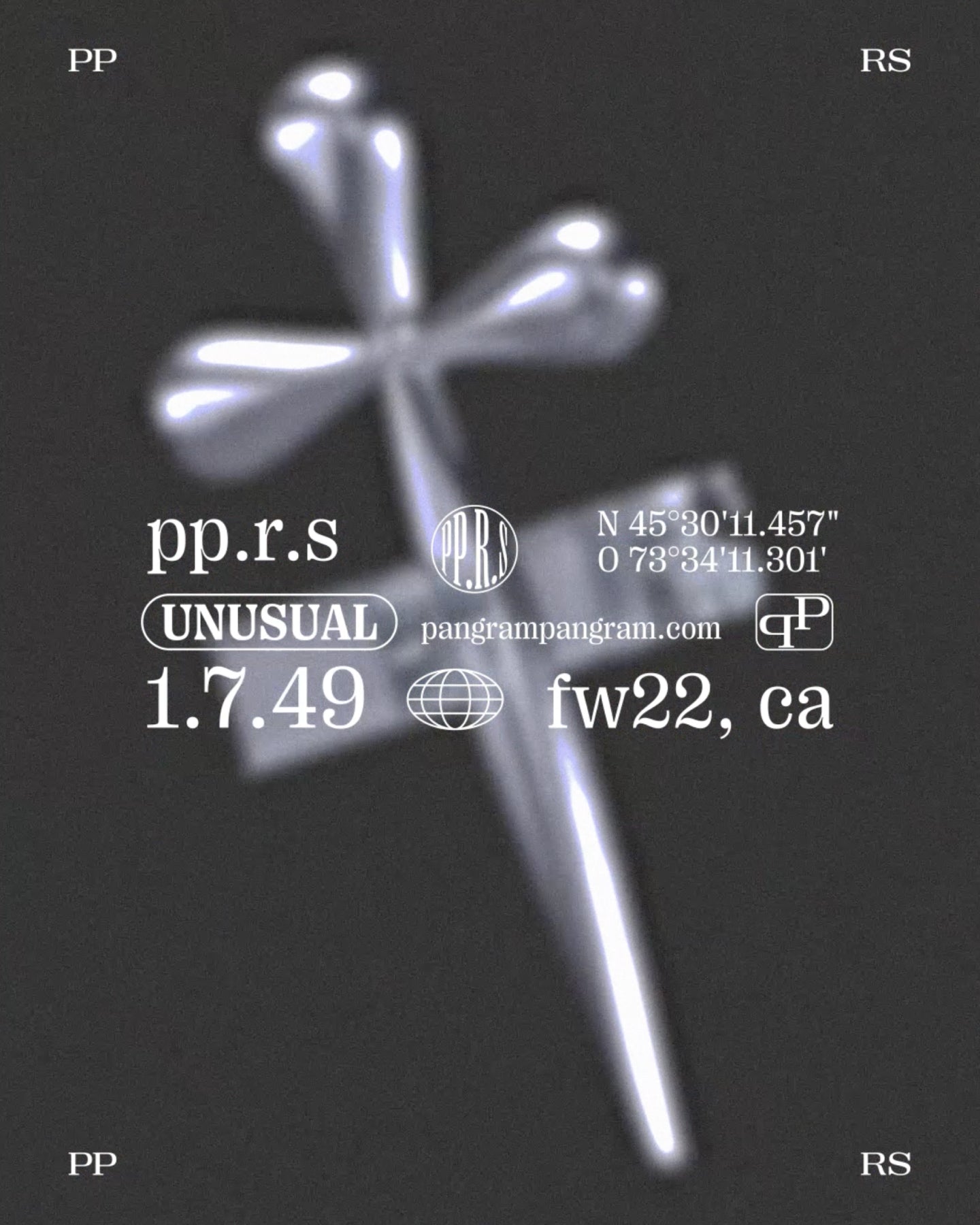
Right Serif is variable
Right Serif
Borrowed from Grotesque, Tailored for Now
Imagine if Helmut Lang, Maison Margiela and Jil Sander created a collaborative label, what might the imagery look and feel like? This was our starting point for our “campaign” for Right Serif. We created a series of imagery that felt part of a wider fashion campaign, this tied nicely to the unusual and contrasting anatomy of the characters of Right Serif. We explored these characteristics in the form or imagery that played with inversion & contrast.
Right Serif is a funky multitool, a spiced up workhorse that stretches between being highly functional and having a unique personality. Unlike many other serif typefaces taking roots in history, Right Serif originated as a sans-serif (Right Gothic to be specific) growing serifs. From there, the typeface inherited moderate contrast and features common among grotesks but rare in serifs, notably large x-height and a wide range of variable styles covering 7 weights × 7 widths. Although the family is mostly intended for large and medium sizes, styles close to Regular work really well for paragraphs of smaller-sized text too.
7 Cuts (49 Styles Total) with 564 Glyphs each